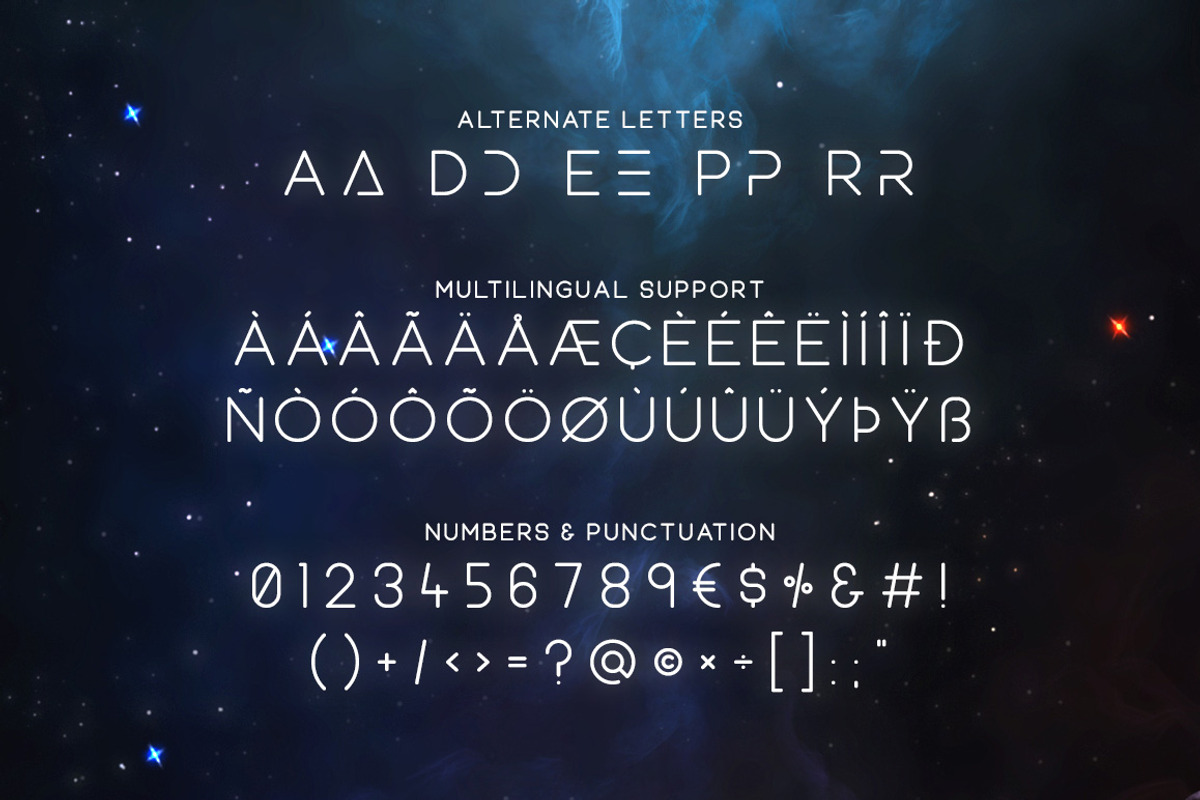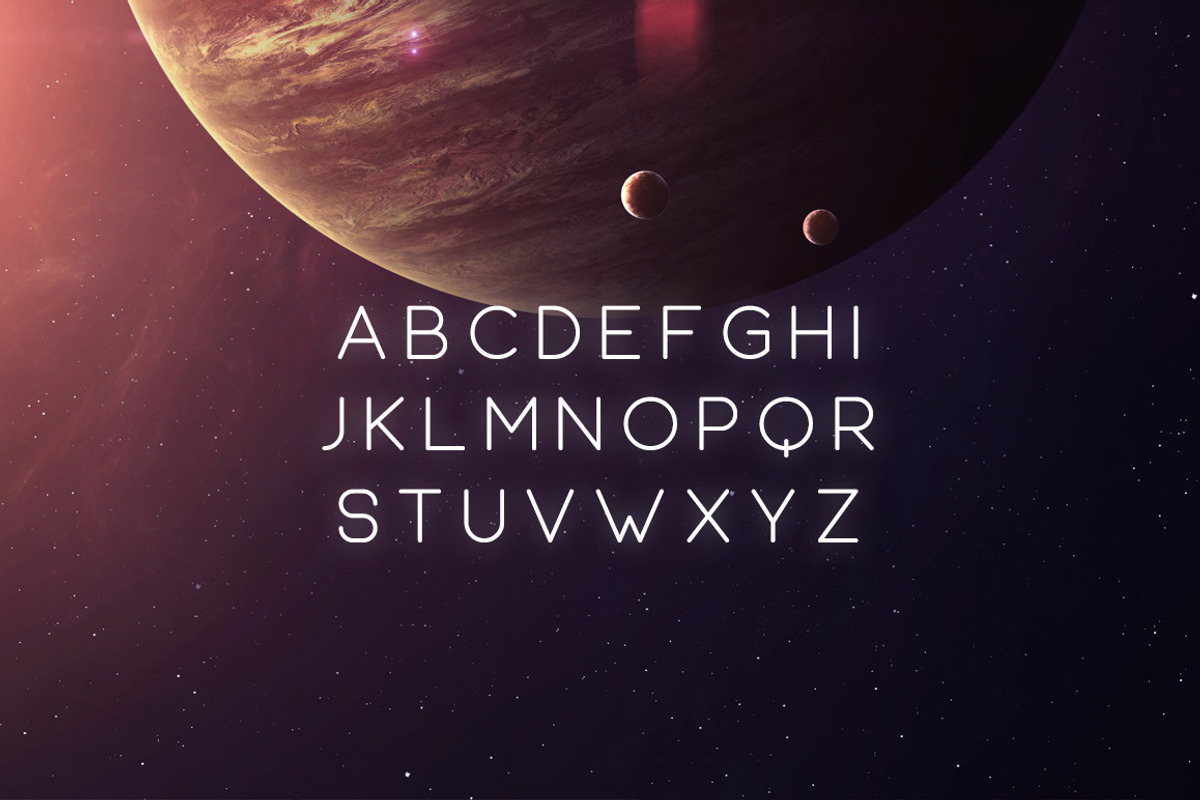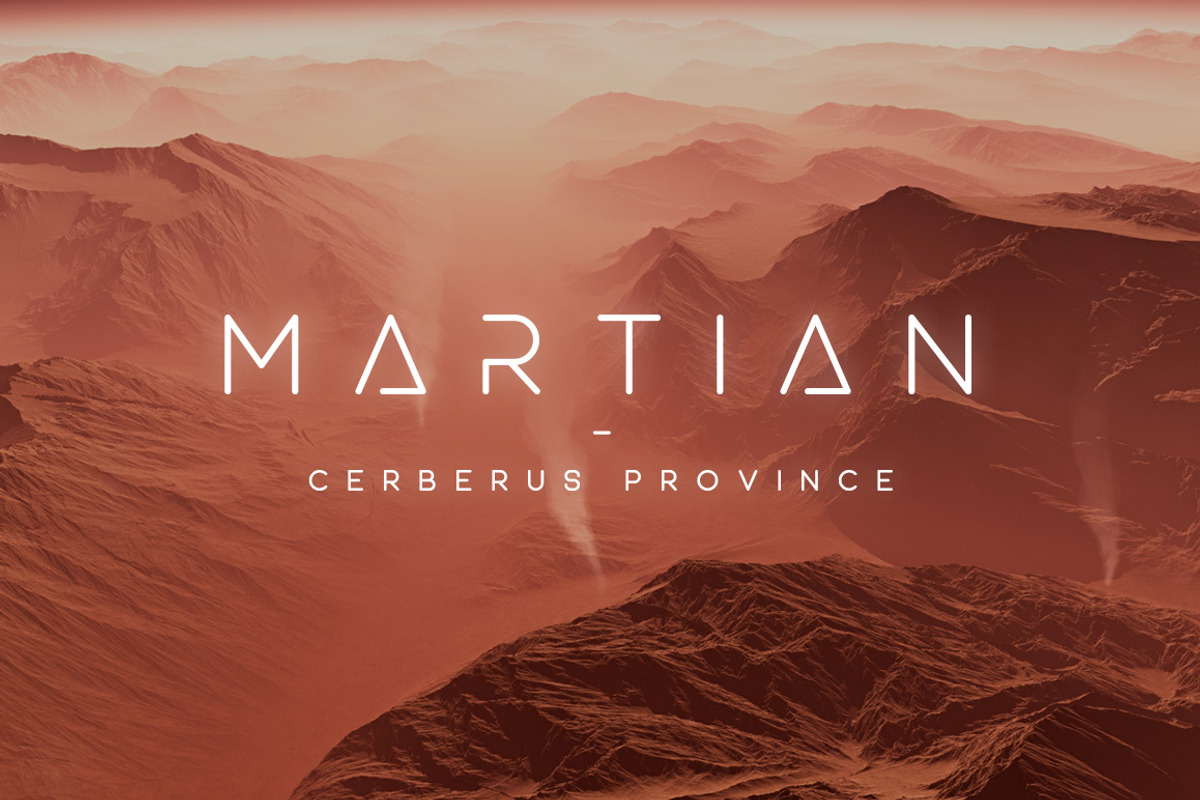
Equinox Typeface
Equinox Typeface by Tugcu Design Co. is a font selected for branding, posters, packaging, typography.
- Equinox is a modern, minimal and clean font family with uppercase multilingual letters, numbers, punctuation and alternate letters.
- Equinox Regular
- Equinox Bold
Equinox Typeface by Tugcu Design Co. fits naturally into Branding, posters, packaging, typography.